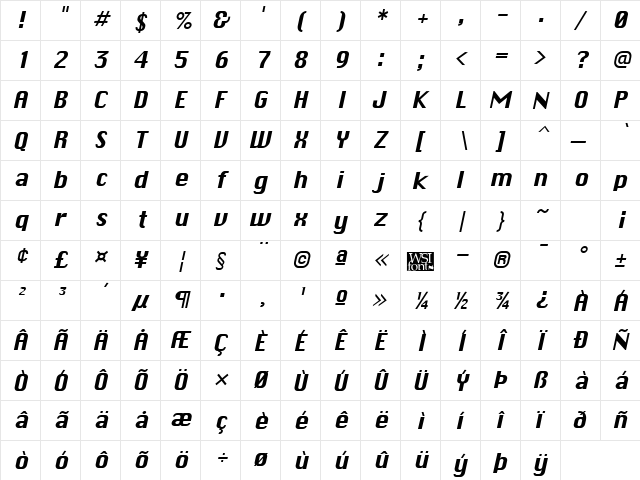
Chicane Italic
Design Context for Chicane Typeface
Chicane offers clean, dependable letterforms without strong stylistic allegiance, making it a practical choice for designers who need flexibility. The slanted form adds forward momentum and visual energy.
Pro Tip: Use Chicane for emphasis, pull quotes, and subheadings where its slanted energy can add rhythm to the layout.